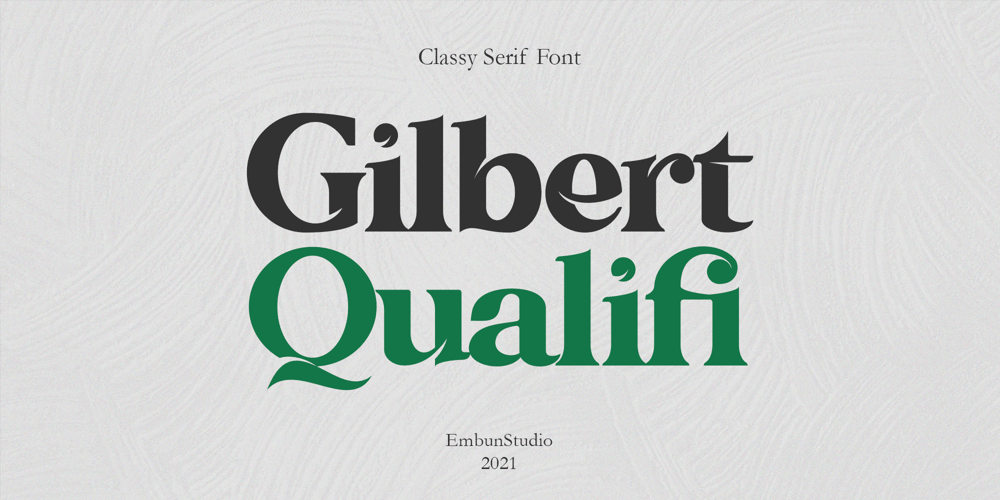
Gilbert Qualifi Font Family was designed by Aditya Rezki Apriyadi and published by EmbunStudio2018. Gilbert Qualifi contains 1 styles and family package options. Hello Everyone have a nice day, let me introduce our new Classy Serif Font called “Gilbert Qualifi” !!Are you ready to make the project more elegant and classy? makes every eye that sees it stunned and silent for a momentThis font is part of our dedication to the world of fonts, the work that takes a long time, makes us make this font as our mainstay fontWhether you have a client that needs a new chic logo, or you’re designing your social media posts. Maybe you’re preparing your wedding mood board, stationery, invitations, Gilbert Qualifi font is just perfect for all of that and more. you can check it all on preview !! Enjoy !! and start Creating !!Include Multilingual : ÀÁÂÃÅÄĄĀĂÆÇĆČĎÈÉÊËĘĒĖĚĞÌÍÎÏĪİÐÑŃŇÒÓÔÕÖŌŐOEŔŘØÙÚÛÜŪŮŰŲŚŠŞŁÝŸŻŹÞàáâãąåäāăæçćčďđèéêëęěēėğıìíîïīðñńňòóôõöoőoeøùúûüūůűŭųþýÿŕřśšşłżźž